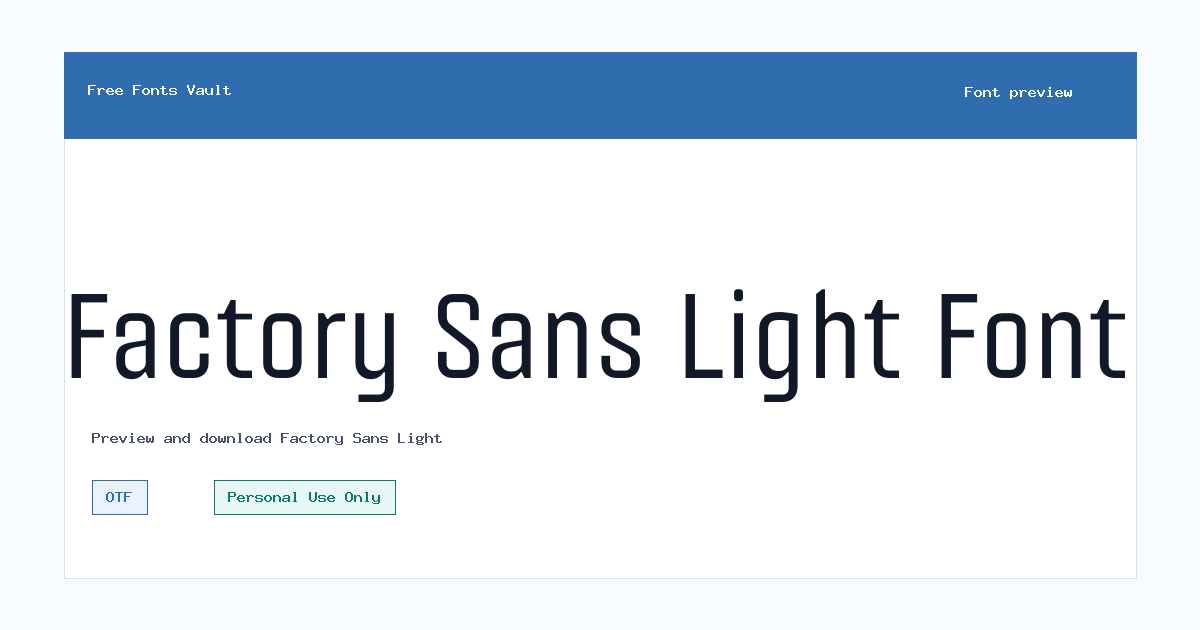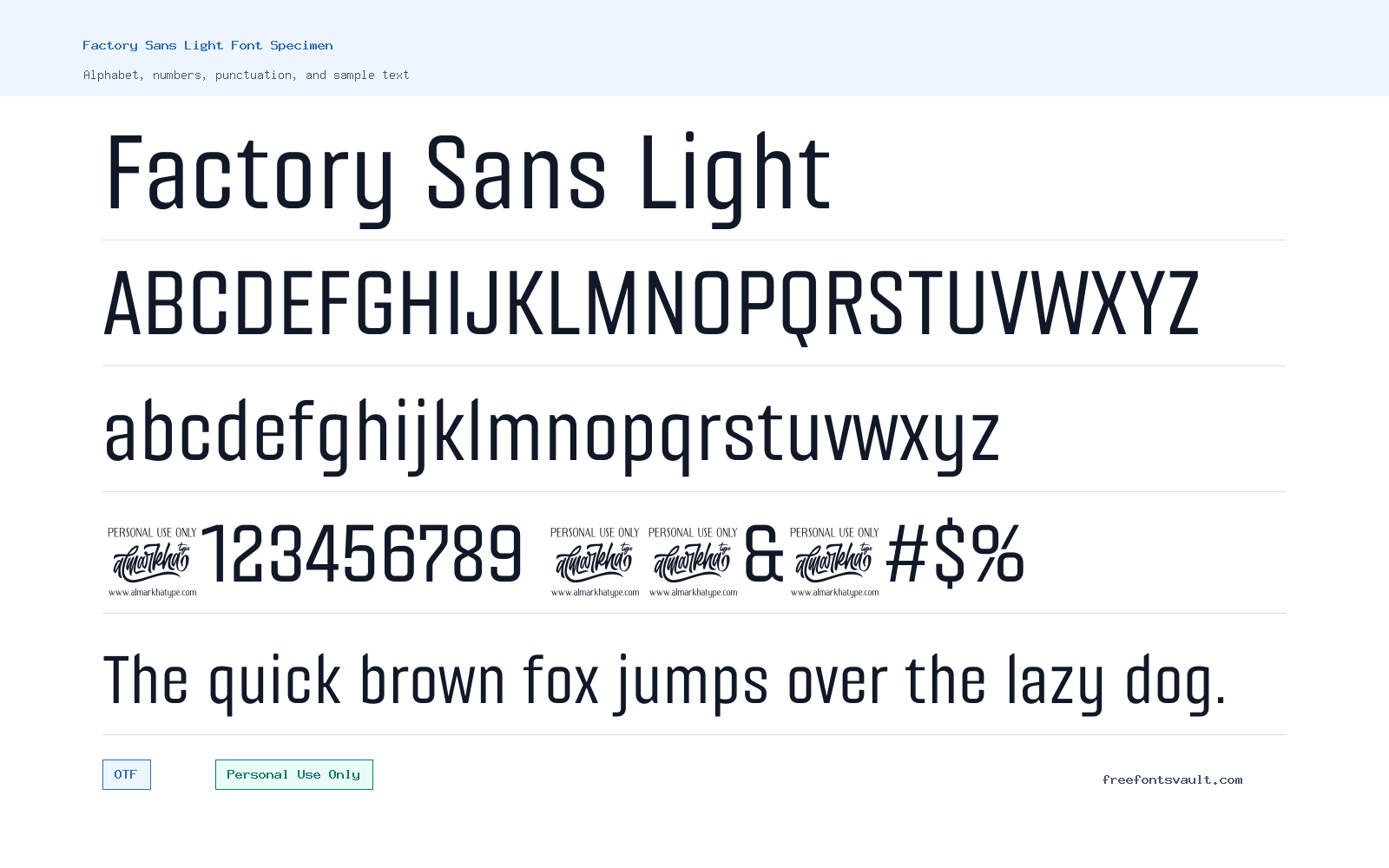
Factory Sans Light
• Designer Rivo Dwi Adriansyah, Abdul Malik Wisnu, Almarkhatype Team
Factory Sans Light is a light-weight sans serif font with a clean, modern look that works well when you want text to feel simple, spacious, and easy to test in a design preview.
About Factory Sans Light
Factory Sans Light is the light style of the Factory Sans family name, with an OTF font file and a normal style setting. Its 300 weight gives it a slimmer appearance than regular or bold sans serif fonts, so it is best suited to designs where the typography needs to feel quiet rather than heavy. In a preview tool, it is worth testing the font at several sizes because light sans serif fonts can look elegant in large display text but may become too delicate in very small body copy.
Use Factory Sans Light for short titles, clean poster layouts, logo drafts, fashion or lifestyle mockups, portfolio headers, web hero text, and branding concepts that need a restrained sans serif tone. It can also work nicely in social graphics where there is enough contrast between the text and background. For readability, avoid placing it over busy images or low-contrast colors, especially in smaller sizes. If you are building a full design system, pair it with a more readable regular-weight sans serif for paragraphs, captions, buttons, and long-form web text.
• Light 300 weight for airy headings, clean titles, and refined display text.
• Sans serif structure that can fit modern branding, web mockups, posters, and editorial-style layouts.
• Best used with strong contrast, generous spacing, and short text blocks rather than dense paragraphs.
• Logo drafts and wordmark concepts where a slim sans serif style is useful.
• Poster titles, event graphics, and clean promotional layouts.
• Website hero headings, landing page mockups, and portfolio header text.
• Fashion, lifestyle, tech, studio, or minimal brand concept presentations.
• Social media graphics that use short phrases and uncluttered backgrounds.
• Typography testing when you need a lighter companion to heavier sans serif fonts.
Try Factory Sans Light first in larger sizes for headlines, logos, posters, and web hero text. Because it is a light 300-weight font, increase contrast and spacing when needed, and use a sturdier companion font for long paragraphs or small interface text. For pairing, keep the contrast simple: use Factory Sans Light for the main display line, then choose a neutral regular-weight sans serif for supporting copy. If a design needs more warmth, pair it with a readable serif in body text, but avoid combining it with another very thin font because the layout may lose hierarchy.
What type of font is Factory Sans Light?
Factory Sans Light is a light-weight sans serif font. The available file is an OTF font with a normal style and 300 weight.
Can I use Factory Sans Light for a logo?
Is Factory Sans Light good for body text?
It can be tested for short lines, but its light weight is usually better for headings and display text. For longer reading, pair it with a regular-weight font that stays clear at small sizes.
How should I pair Factory Sans Light?
Use Factory Sans Light for the main title or display word, then pair it with a regular-weight sans serif for paragraphs, labels, and supporting text. Keep the pairing simple so the light style remains clear.